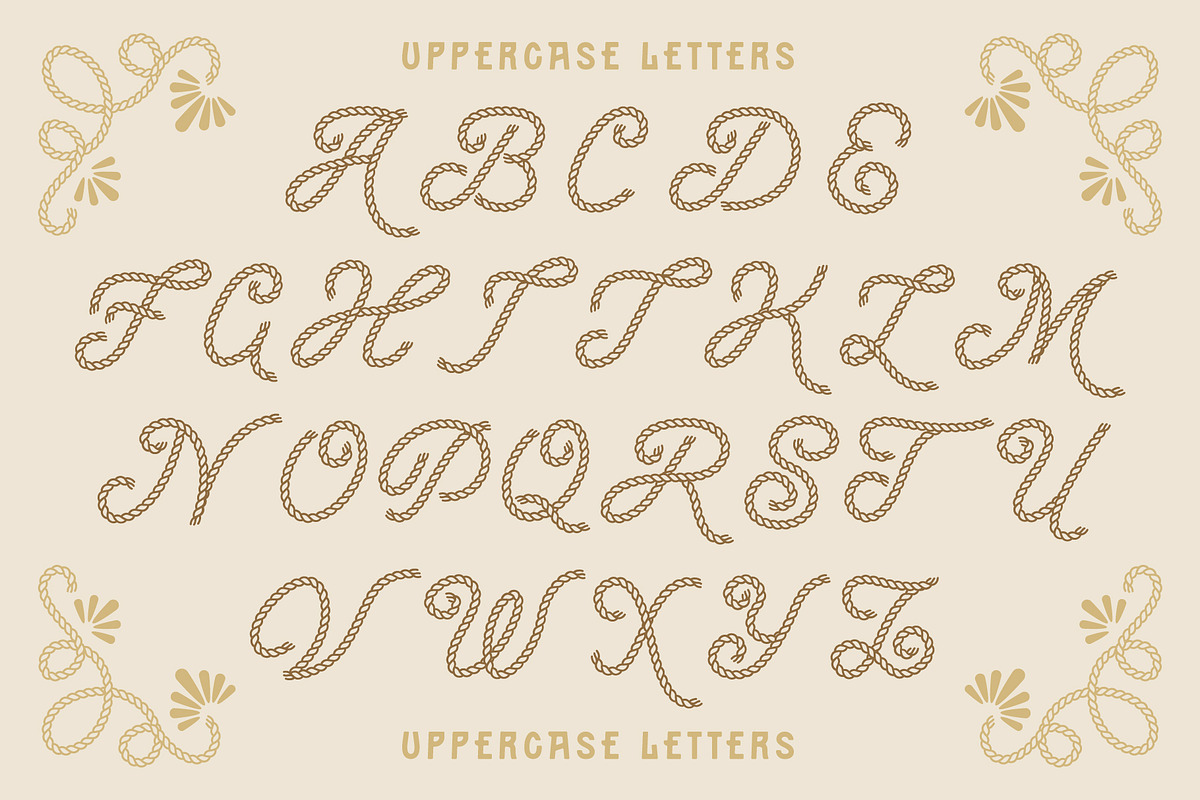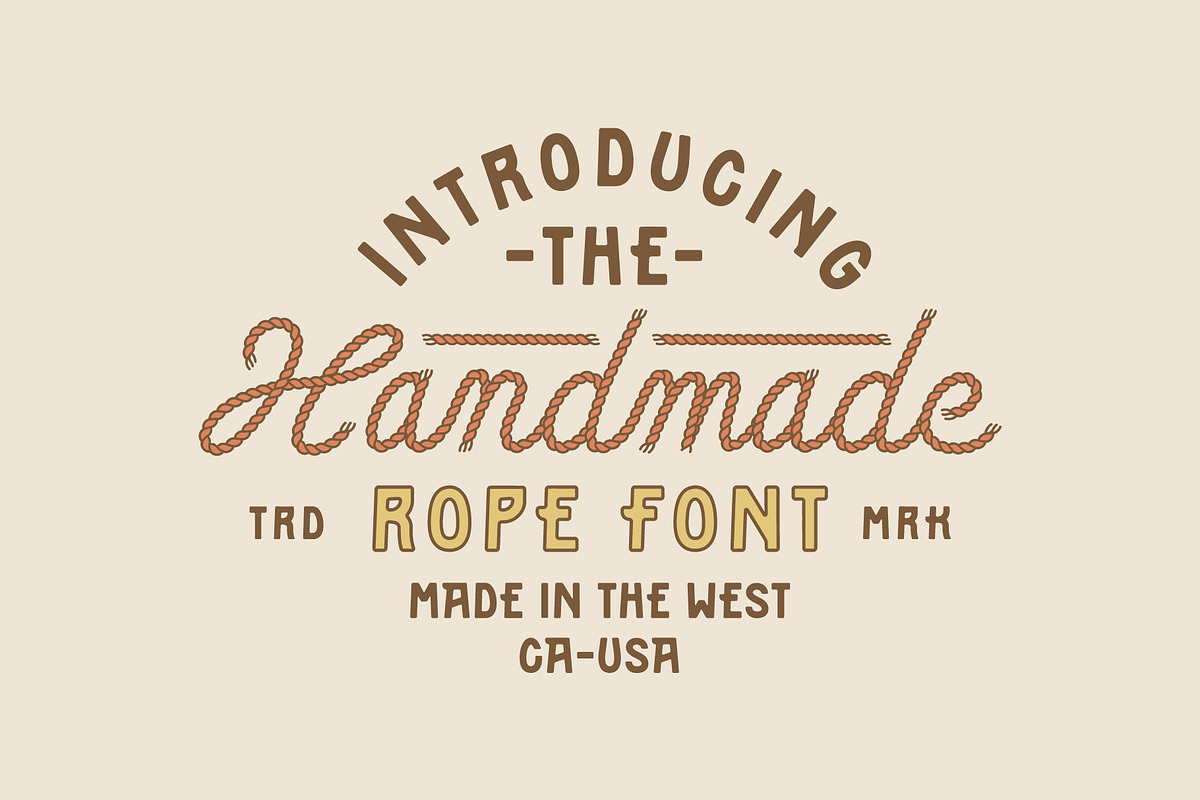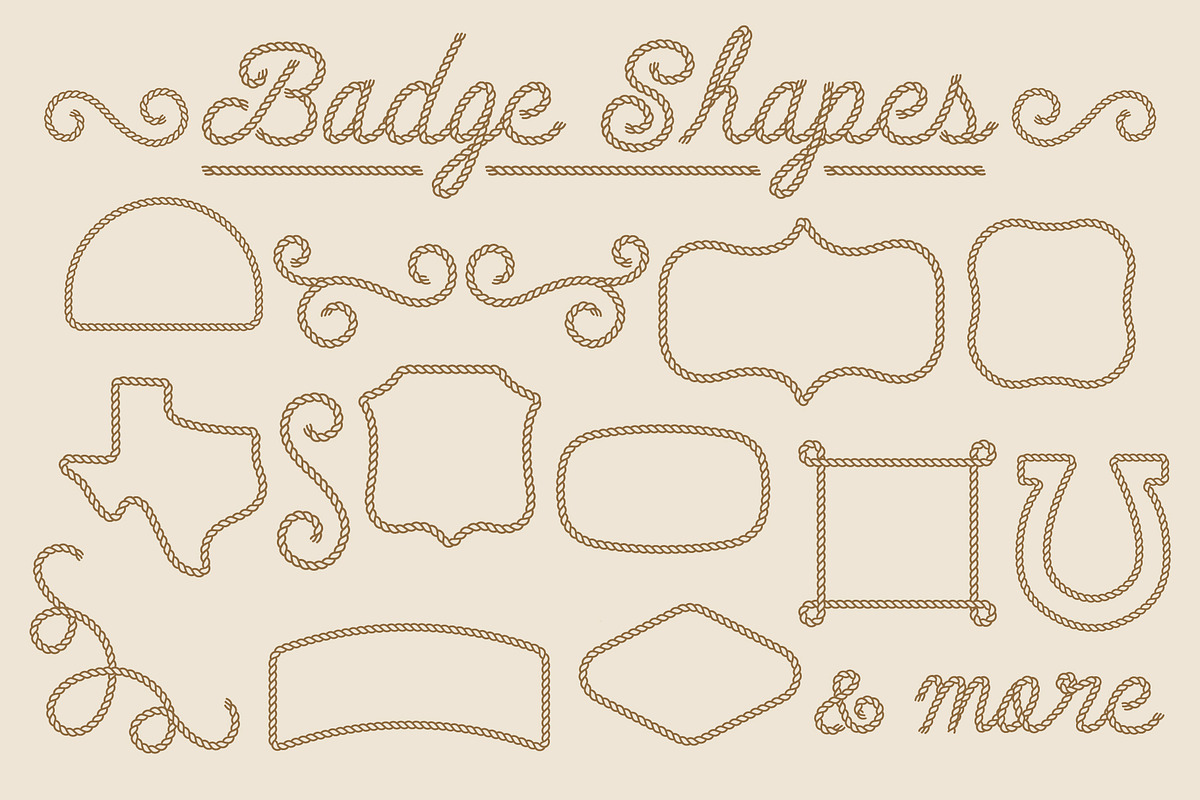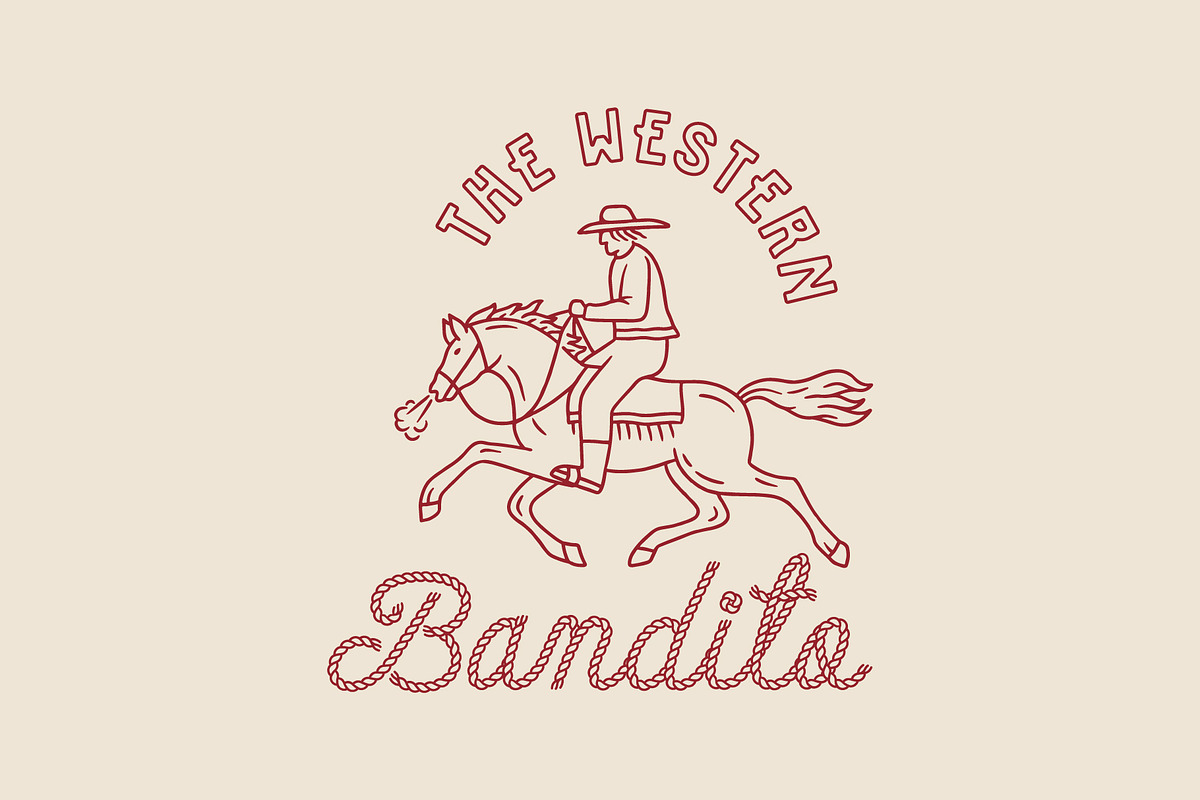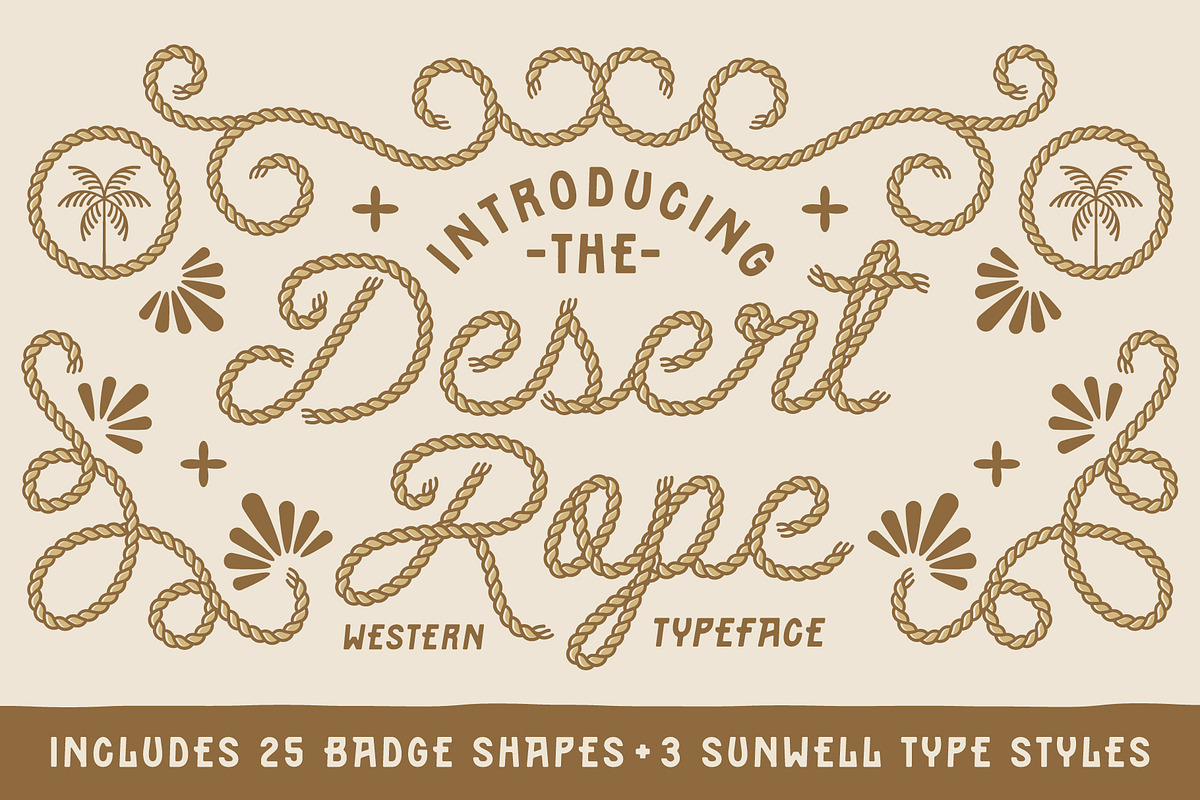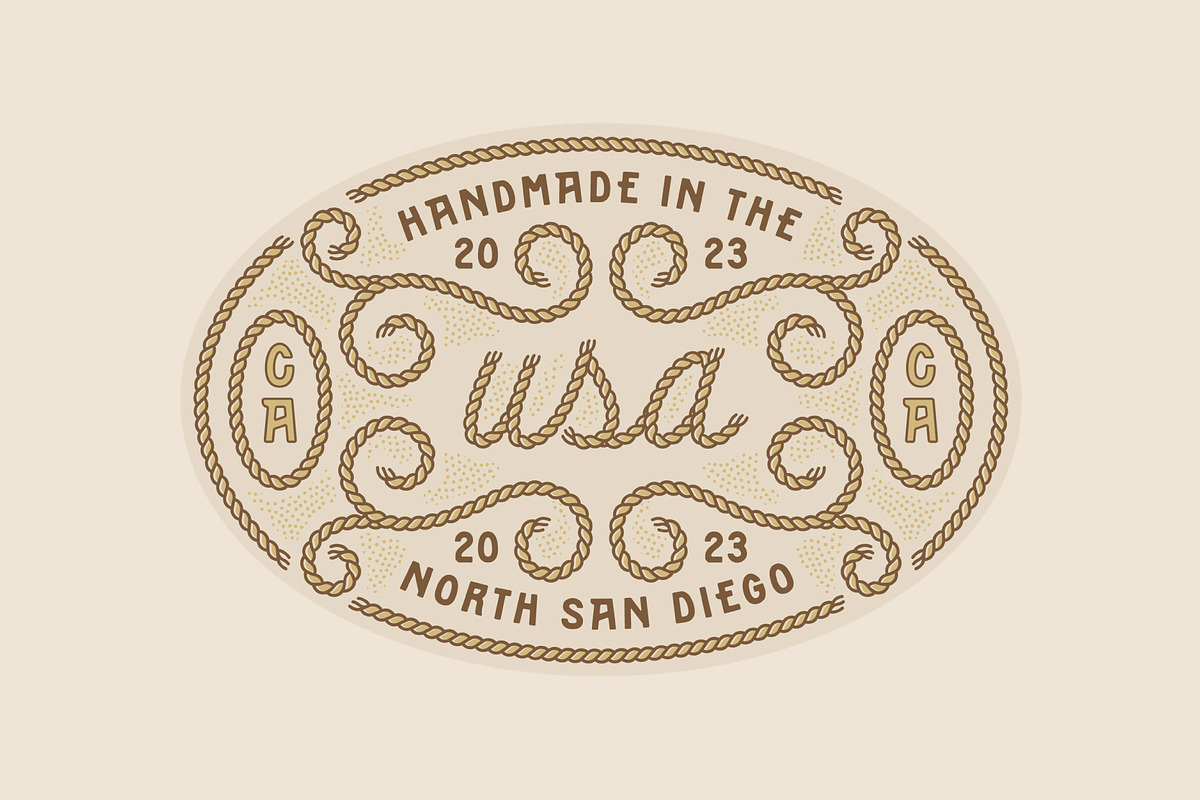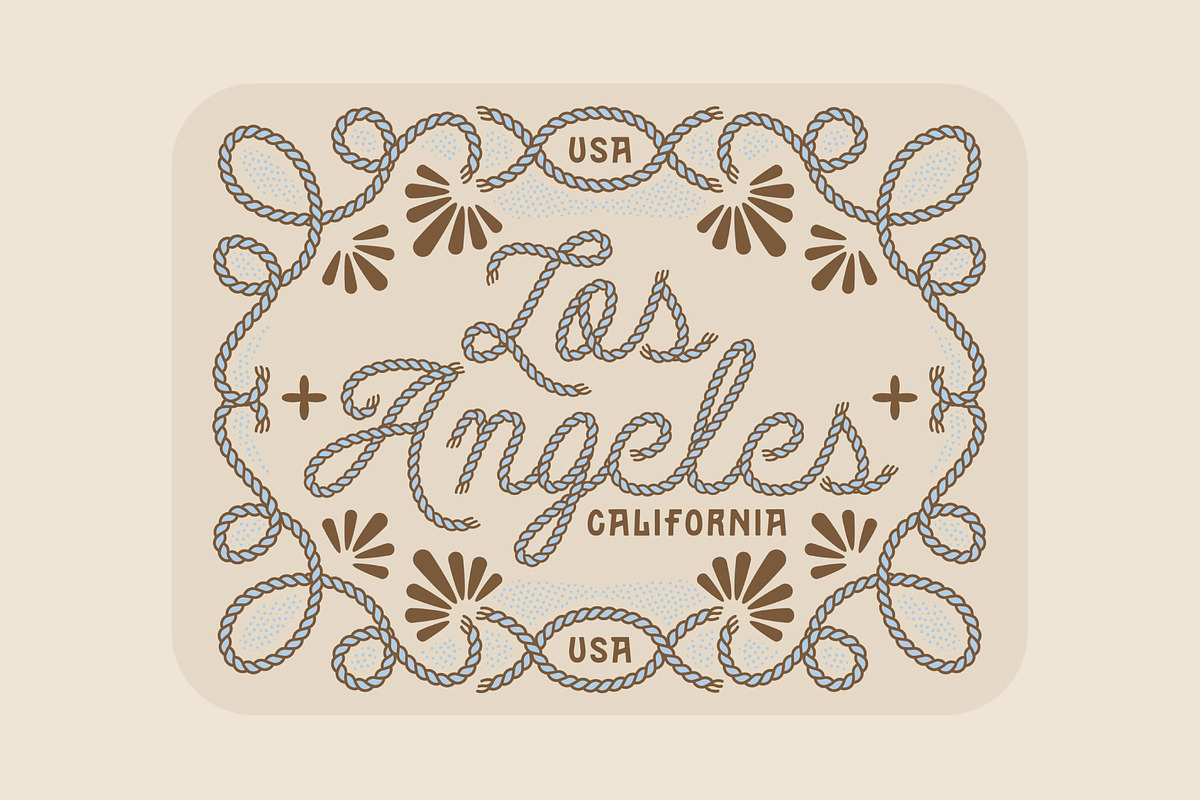
Desert Rope Font Duo
The Desert Rope typeface is here! Inspired by the loose twirls of a lasso, Desert Rope is a fully functioning script font that includes a wide range of character alternates and ligatures. This font will bring that authentic vintage western vibe to your work. Includes:
- Desert Rope Typeface
- Bonus Sunwell Typeface (3 font styles)
Whether you're branding a western event or adding a rustic touch to your illustrations, this font will be your new trusty steed.